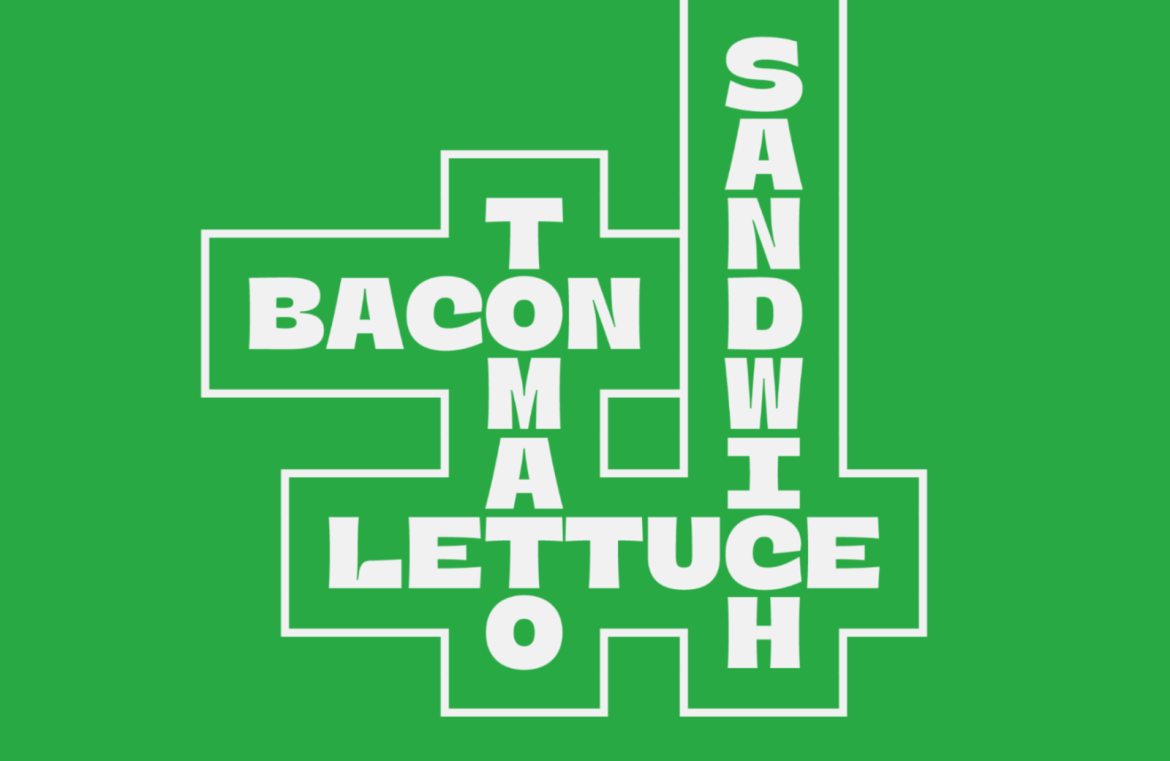
Typographic design translates our words into visually impactful statements, significantly impacting our creative expressions.
However, navigating the vast array of typefaces to find the perfect one for a project can be an arduous task, especially when many leading brands tend to default to neutrally safe geometric sans-serifs.
Our curated list this month offers you new and intriguing options, including adaptable variable fonts, timeless revivals, and some complimentary offerings.
Unconventional DT Random Display
DT Random Display injects a lively burst of originality into your projects, though it’s a font best enjoyed in moderation due to its challenging readability. Perfect for an avant-garde music album cover, DT Random Display is up for grabs at no cost.
Bold and Maximalist Escura
Escura masterfully merges tradition with contemporary forms, blending Celtic scripts into a striking geometric pattern. This font also boasts variable abilities.
Chunky Charm with Merni
Merni offers a hefty display option that’s great for making a solid statement in branding or packaging. Despite its bulk, it maintains a welcoming, whimsical vibe without veering into childish territory.
Elegantly Crafted VEQAY
VEQAY stands out with its elegant stencil form, ideal for sophisticated editorial or branding projects. The typeface’s uppercase particularly shines with its dynamic, seaweed-esque curves.
Distinct and Dynamic Binate
Binate fuses the clarity of sans-serif with the personality of brush serifs, crafting an expressive yet neat typeface far more engaging than its more sober relatives.
Versatile PP Fragment
PP Fragment encompasses an eclectic mix of four typefaces, all created to provide a robust, versatile environment. Drawing inspiration from vintage 19th-century adverts, it includes Sans, Glare, Serif, and Text line-ups, all available as a variable font.
Whimsical OBO Star
OBO Star is a delightfully plump display font brimming with unique flair. Its semi-monospaced design builds on square shapes, offering a flexible choice for dynamic branding.
Ping Round’s Simplistic Beauty
Ping Round strips back complex forms to the barest essentials, achieving a look characterized by its distinctive teardrop-shaped counters.
Mathematically Harmonious TT Interphases Pro
TT Interphases Pro offers a newly refined look tailored to the structured world of UI design. It’s perfectly suited for those requiring a clean, unambiguous sans-serif for interfaces or infographics.
Sleek Apta
Apta achieves a subtle equilibrium between the humanist warmth and geometrical precision, reminding one of classics like Gotham or Gill Sans. It presents three varied stylistic sets, catering to both tastes and creating a versatile toolkit for designers.
Vintage-Inspired Gardez
Gardez boasts a retro Californian charm with its distinctive inverted contrasts and excels at grabbing attention in any banner ad space.
Revamped Classic Effra
Effra may not be new to the scene, but it has certainly been rejuvenated with a variable font option for its range of weights and styles. It combines a geometric structure with humanist nuances, making it a digital design favorite.
Retro Charm of Vermors
Vermors revives the spirit of yesteryear with its charming vintage touches. This all-caps, display-only font might whisk you away to a scene straight from an old western.
Rhythmical Satiata
Satiata bursts onto screens with a vivacious chunky display style that seems to hop and dance thanks to its angled strokes.
Innovative Rund Display
Rund Display breathes fresh life into the well-trodden path of geometric sans-serifs with its concave terminal features that enhance legibility and style, especially at larger scales.